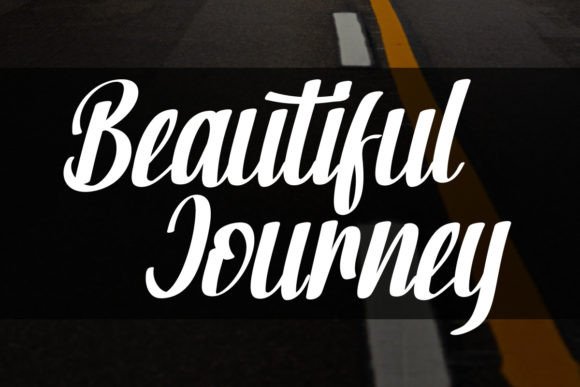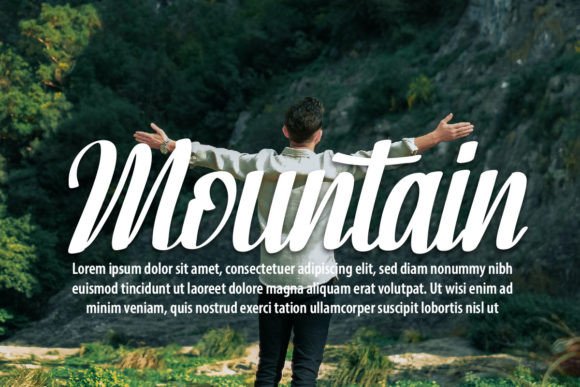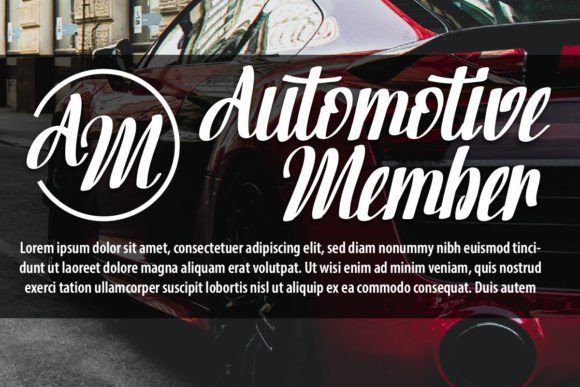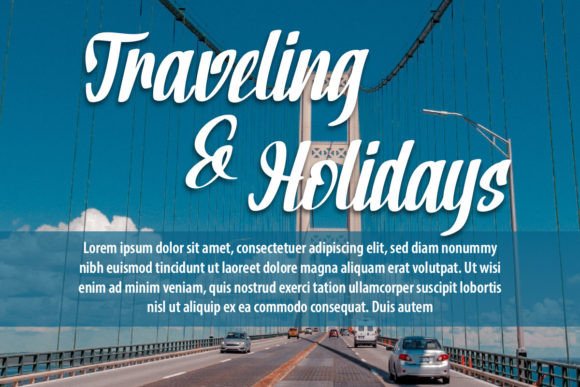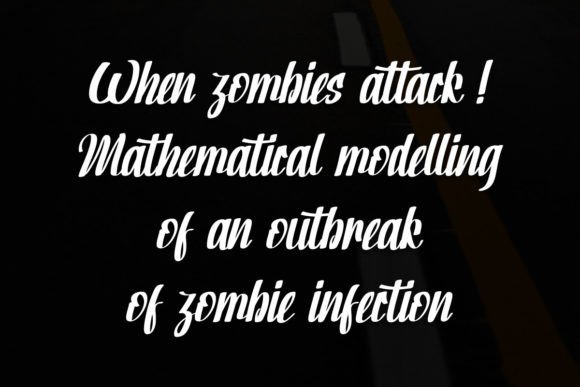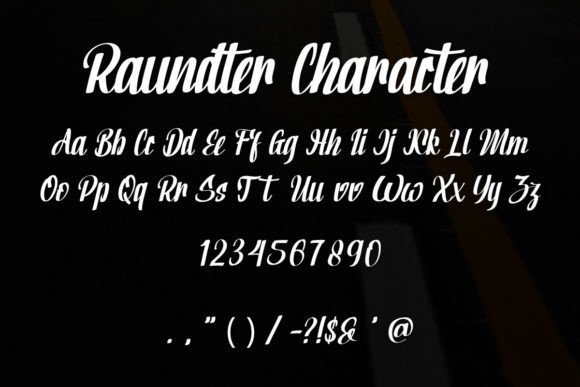
Introduction to Raundter Font
Raundter A Bold Script Font is our new item suitable for your Posters.
Great for Logo, Poster, Sticker, Jerseys, Invitation Card, Brochure, etc What you get : 1 Otf File.
Key Features of Raundter Font